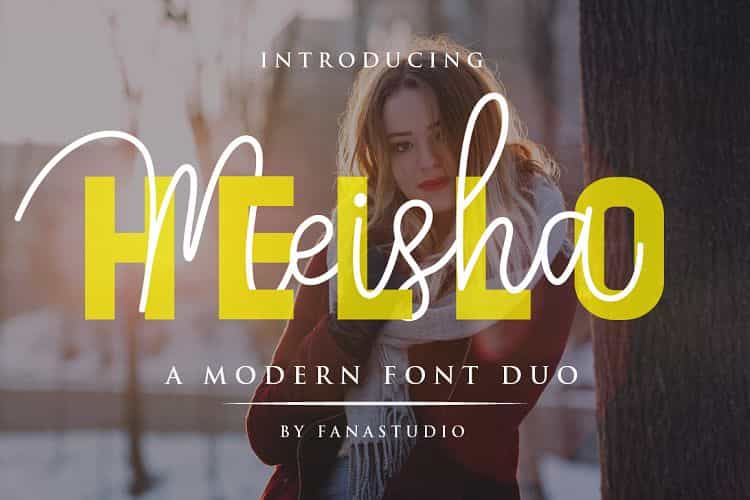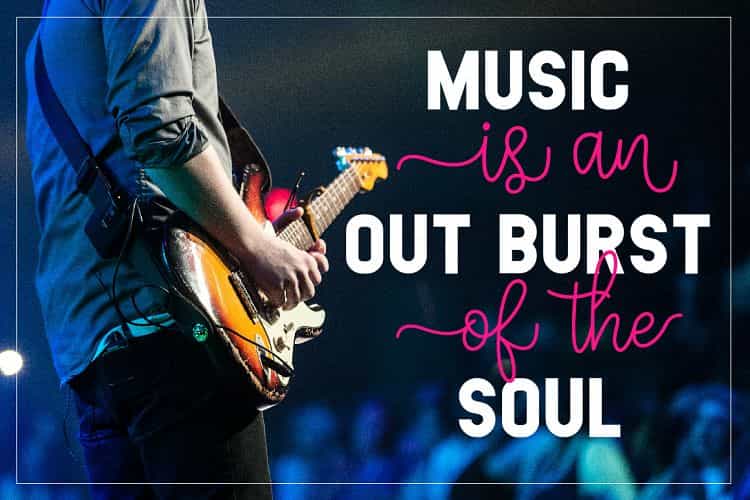
Hello Meisha Font Duo
Discover Hello Meisha Font Duo, part of the   Sans Serif  Handwritten collection—a versatile and unique font perfect for adding a personal touch to your projects. Download it for free and enjoy crafting designs with style, from invitations to social media posts. This font is available exclusively for personal use, giving you the freedom to create without limits. Unlock your creativity with Hello Meisha Font Duo today!
Introducing Hello Meisha Font. Hello Meisha Font Duo, a modern style of font. This amazing script font is your personal stamp in the latest art project with elegance, class and modern style. HelloMeisha a Modern Font Duo is a beautiful typographical will that can be used in many different projects like logos & branding, invitation, stationery,wedding designs,social media posts , advertisements, product packaging, product design, label photography, watermark, special events or anything else which needs handwriting appearance.